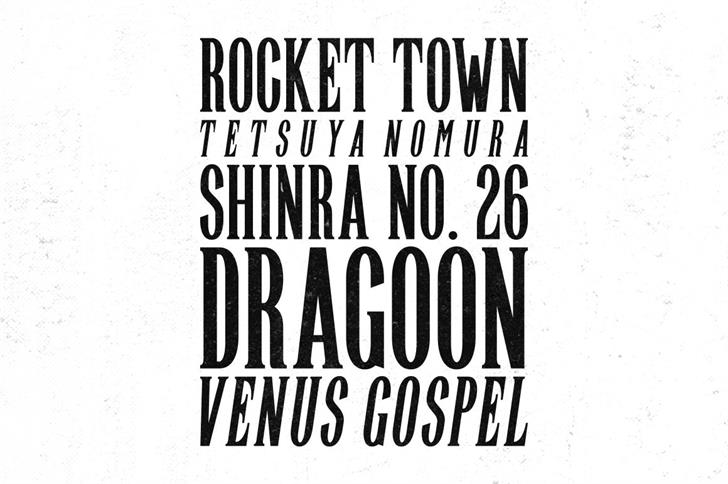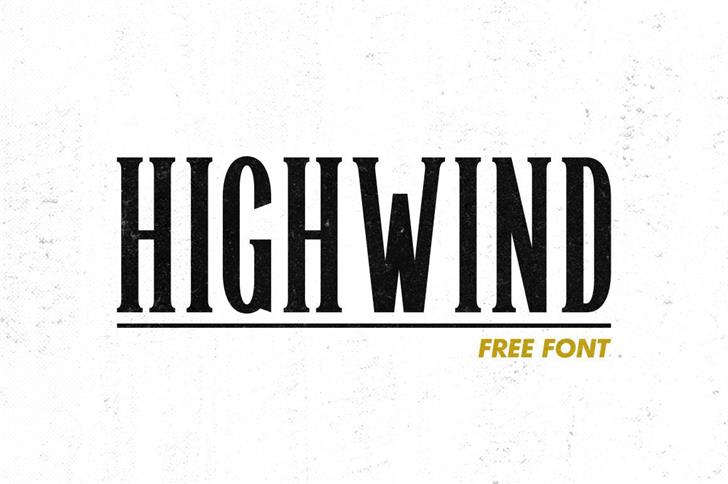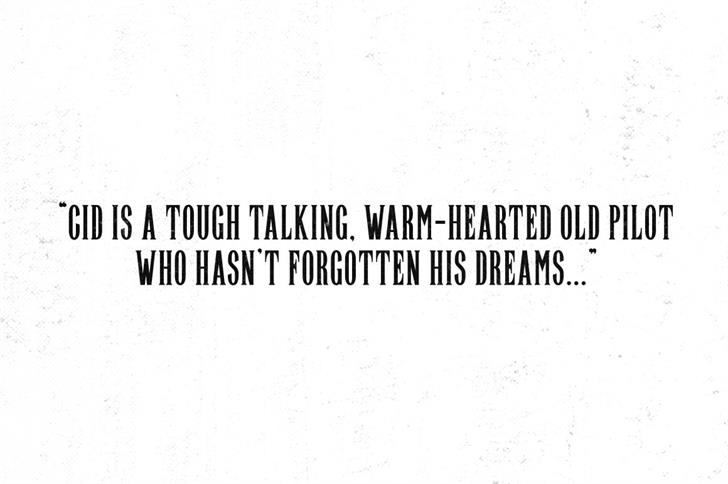
Highwind Typeface
Hi designer. Introducing Highwind! It is designed and shared by Twicolabs. Highwind is a condensed all-caps serif that are borrowed the shape and style from the famous Final Fantasy logo. Author made this font as a homage to the one of the best RPG franchises that i ever played. Enjoy Highwind and take the skies!